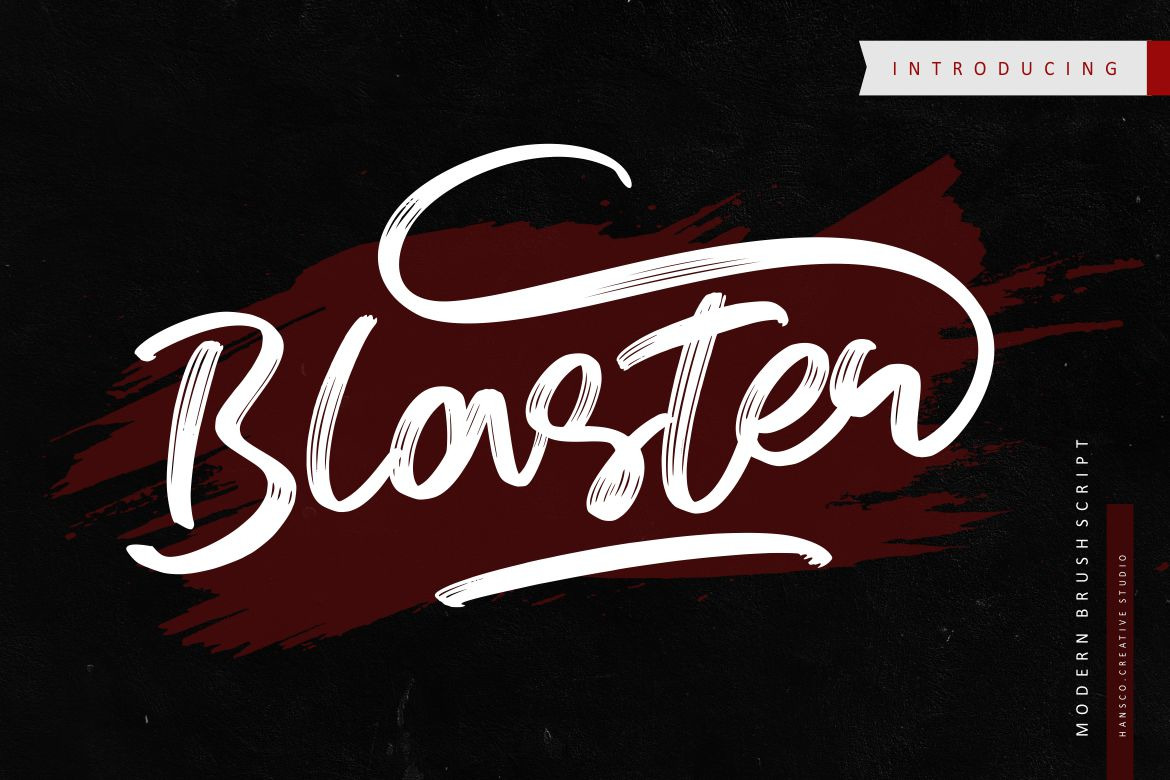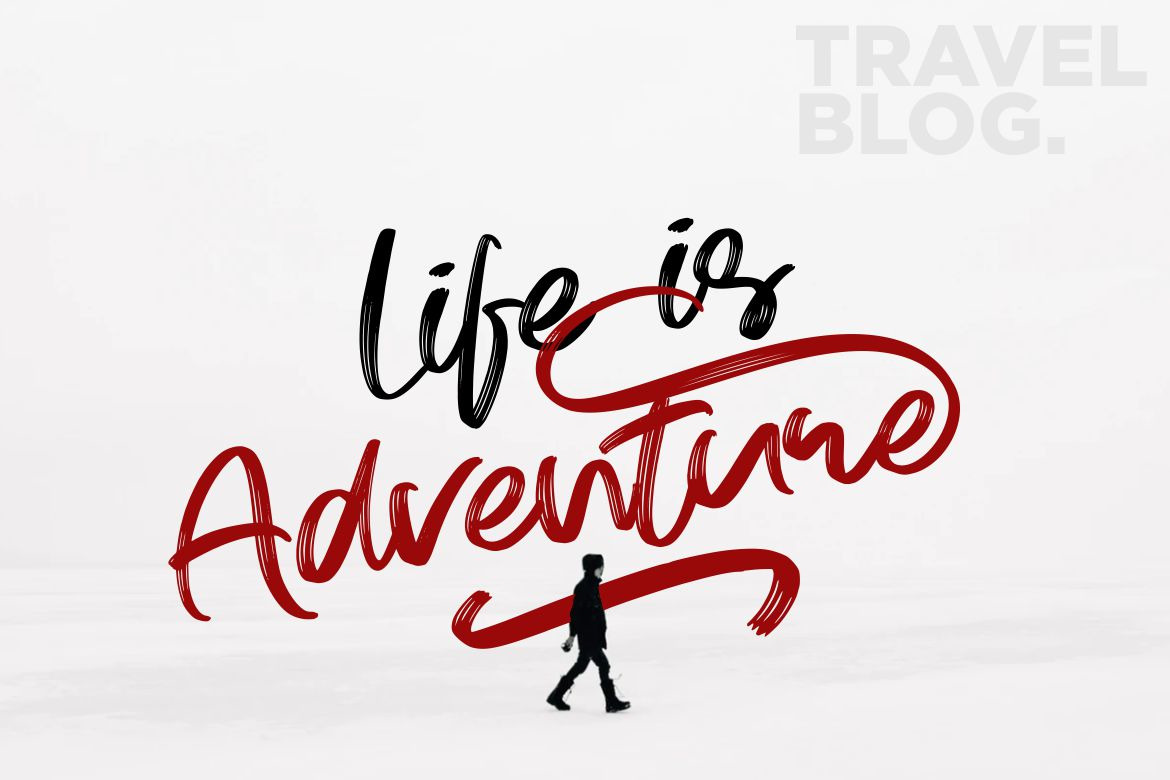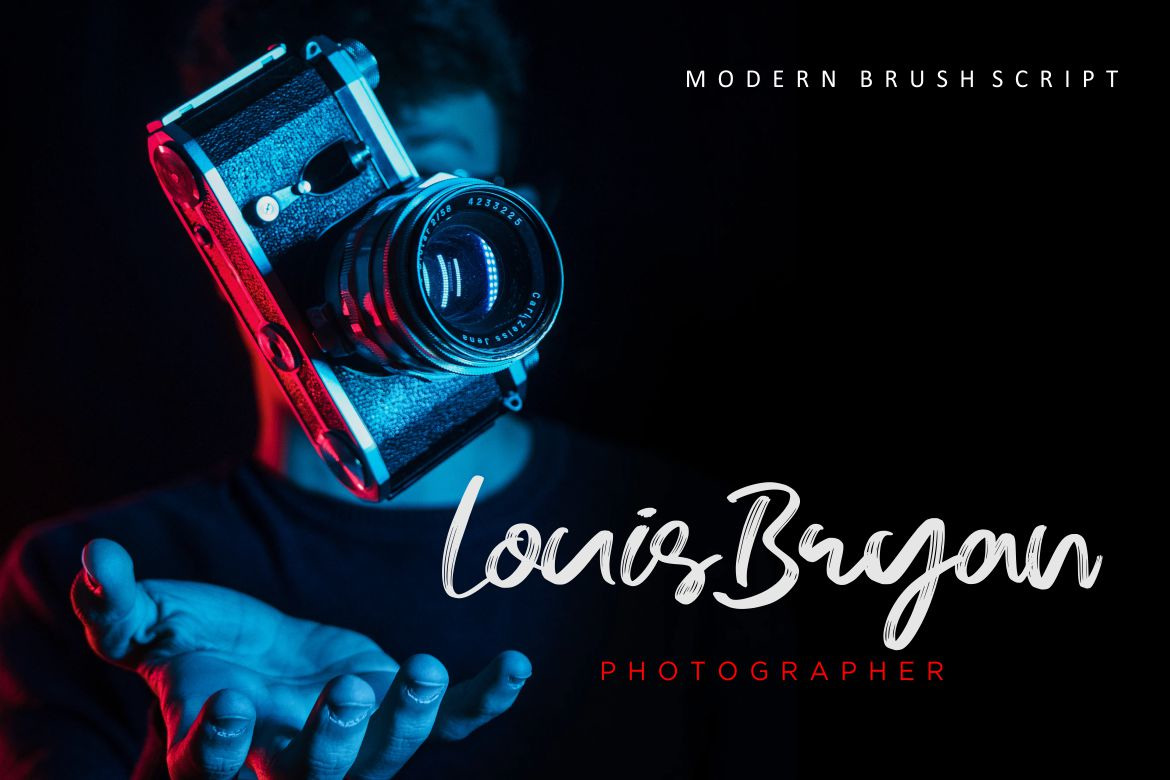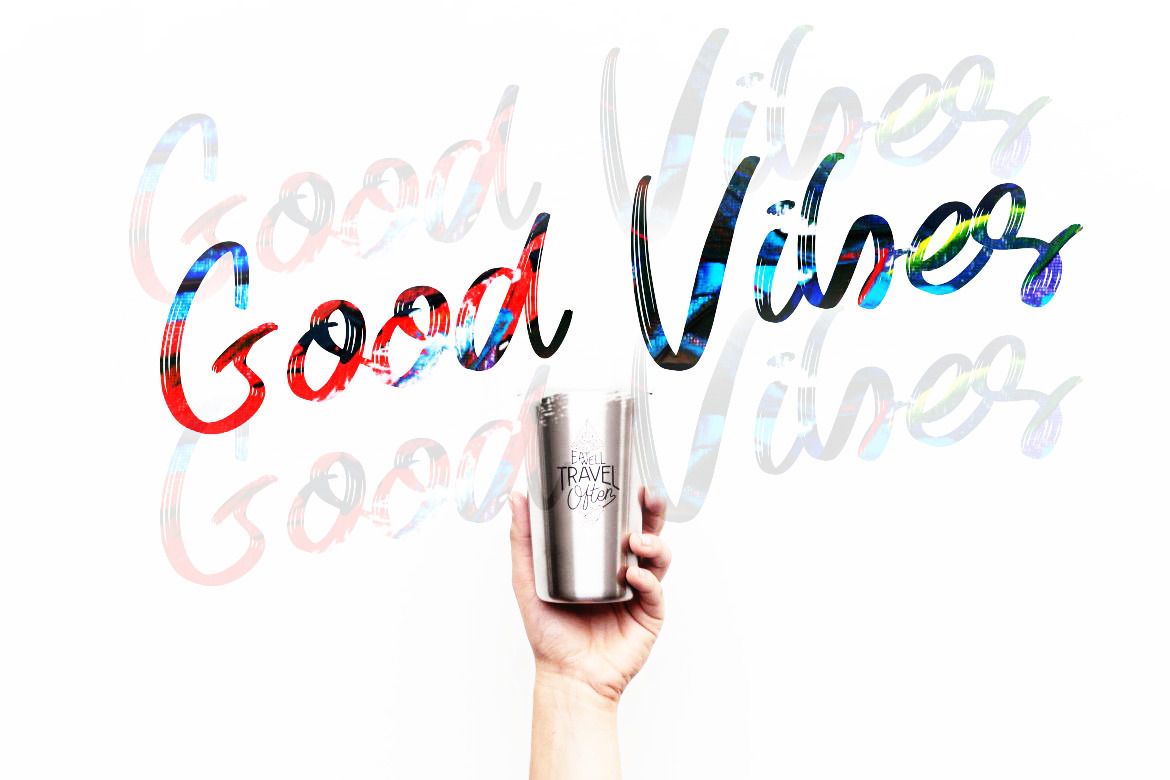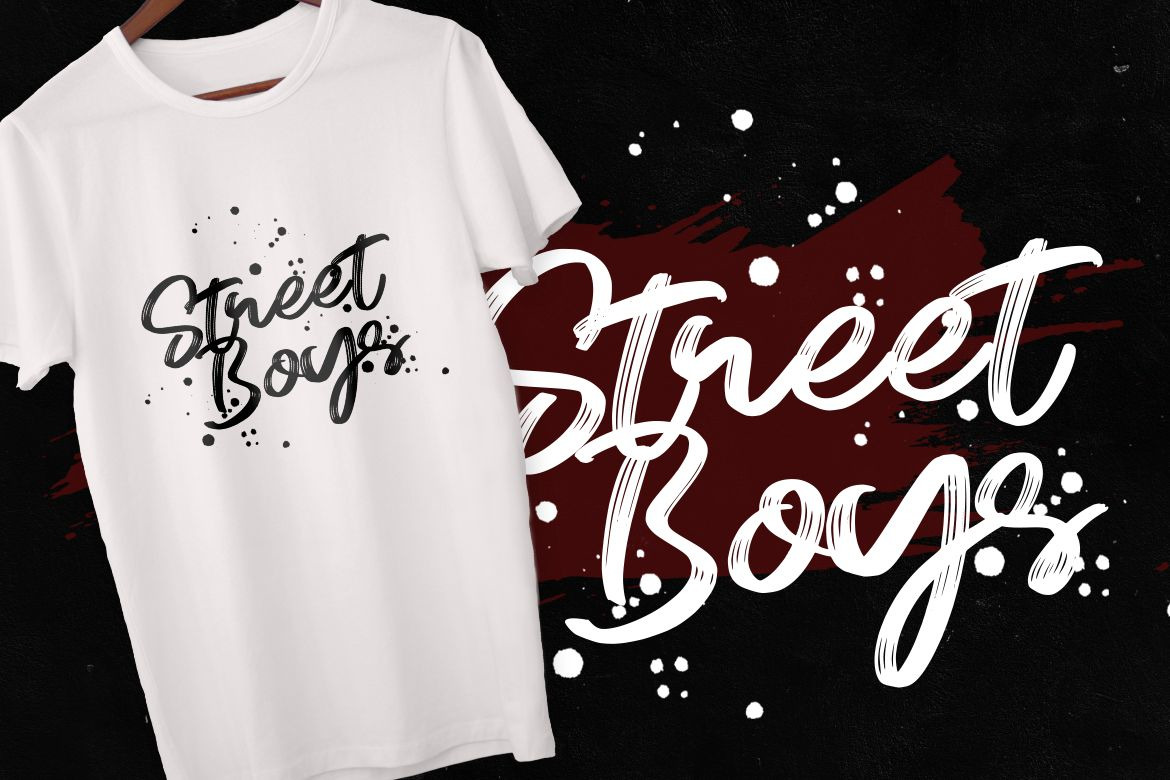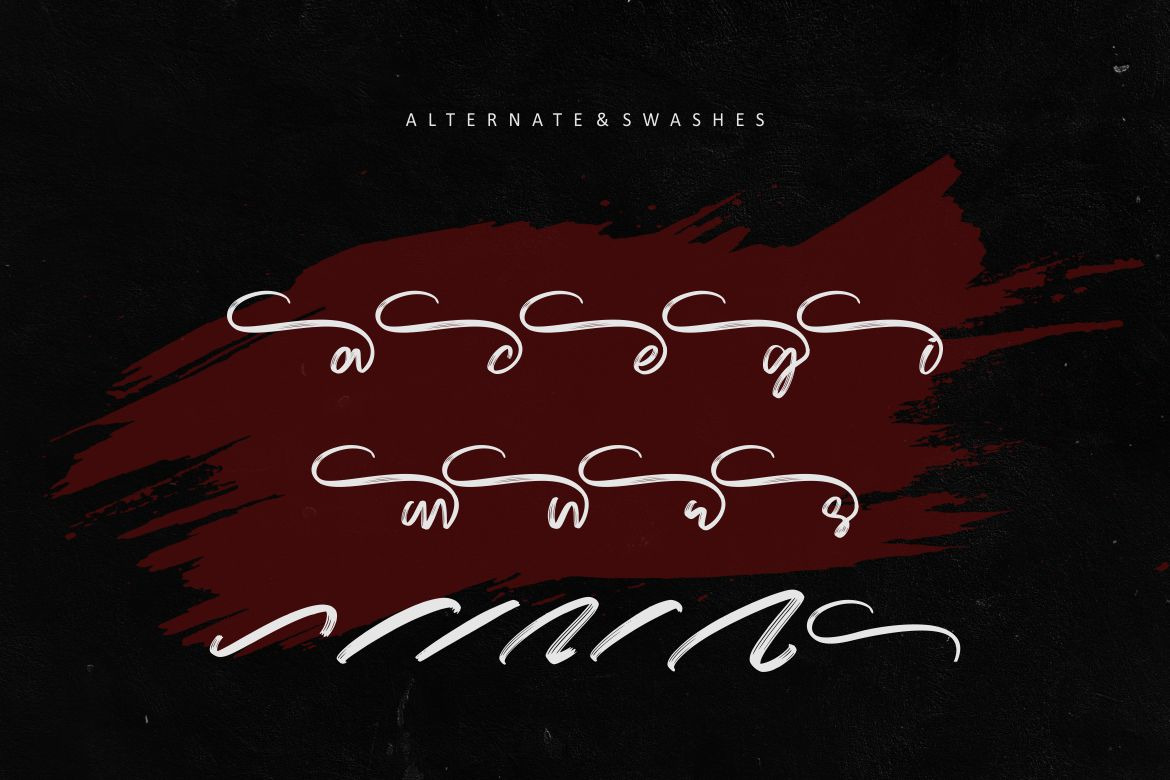
Blaster Font
Blaster is a modern and clean handbrush typeface that will shine for multipurpose project. This font very recommended for poster, logo, headline, quote, branding, fashion, or anything else you want. It's good for display or just a text.